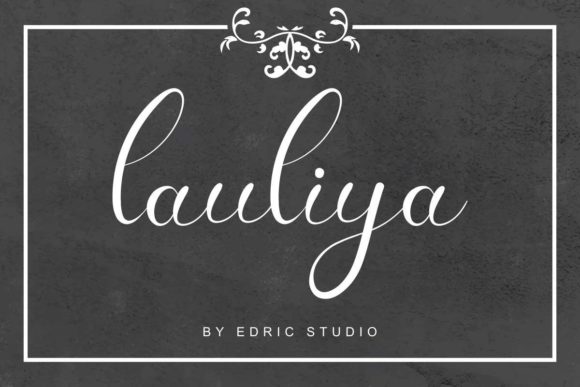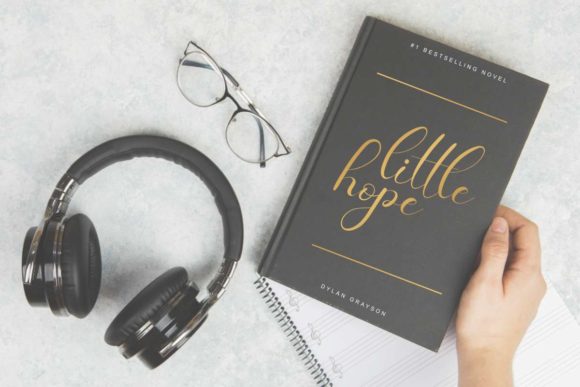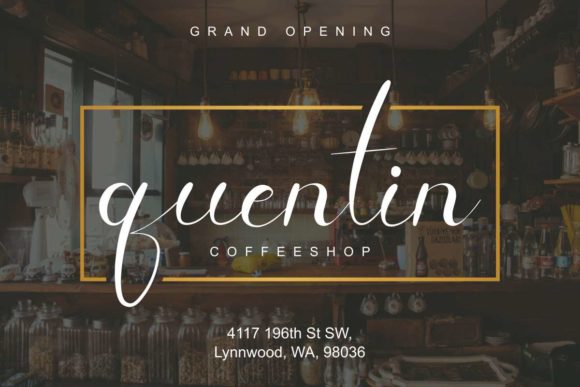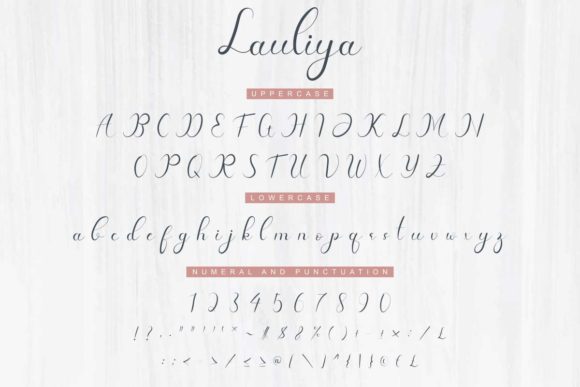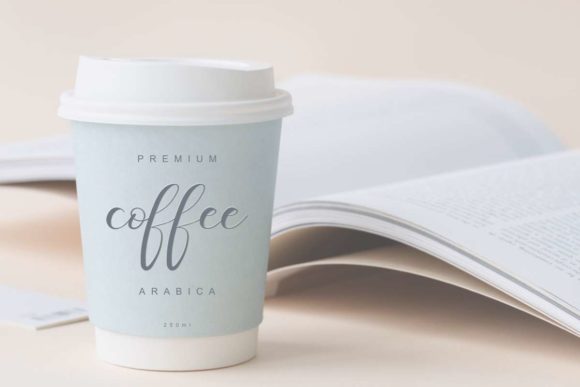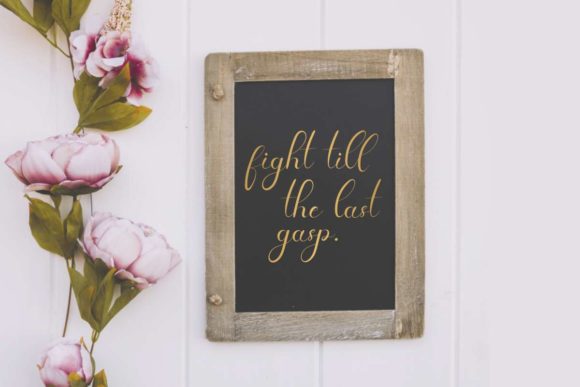
Introduction to Lauliya Font
Lauliya is a sweet, soft hand-lettered handwritten font.
It features a varying baseline, smooth lines, gorgeous glyphs and stunning alternates It will take your designs to the next level.
Lauliya Font offers exceptional quality and versatility, making it a valuable addition to your design toolkit. Whether you’re creating for personal projects or commercial use, Lauliya Font delivers professional results.